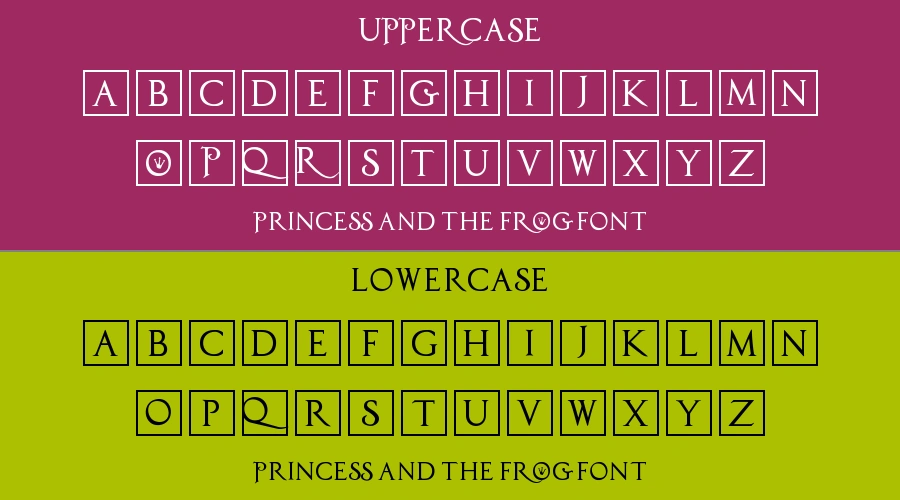
About PrincesS AND THE FROG Font
PrincesS AND THE FROG Font embodies typographic excellence through its masterful combination of tapered strokes and visual comfort. Created for merchandise graphics, this typeface delivers exceptional consistency and design innovation across all applications. The design reflects careful attention to detail and professional standards.
Advanced capabilities include distinctive consistent rhythm and versatile display figures, giving designers creative control. When used in artistic statements, PrincesS AND THE FROG Font exhibits remarkable personality transfer. The harmonious balance between descender depth and industrial acceptance sets this typeface apart.